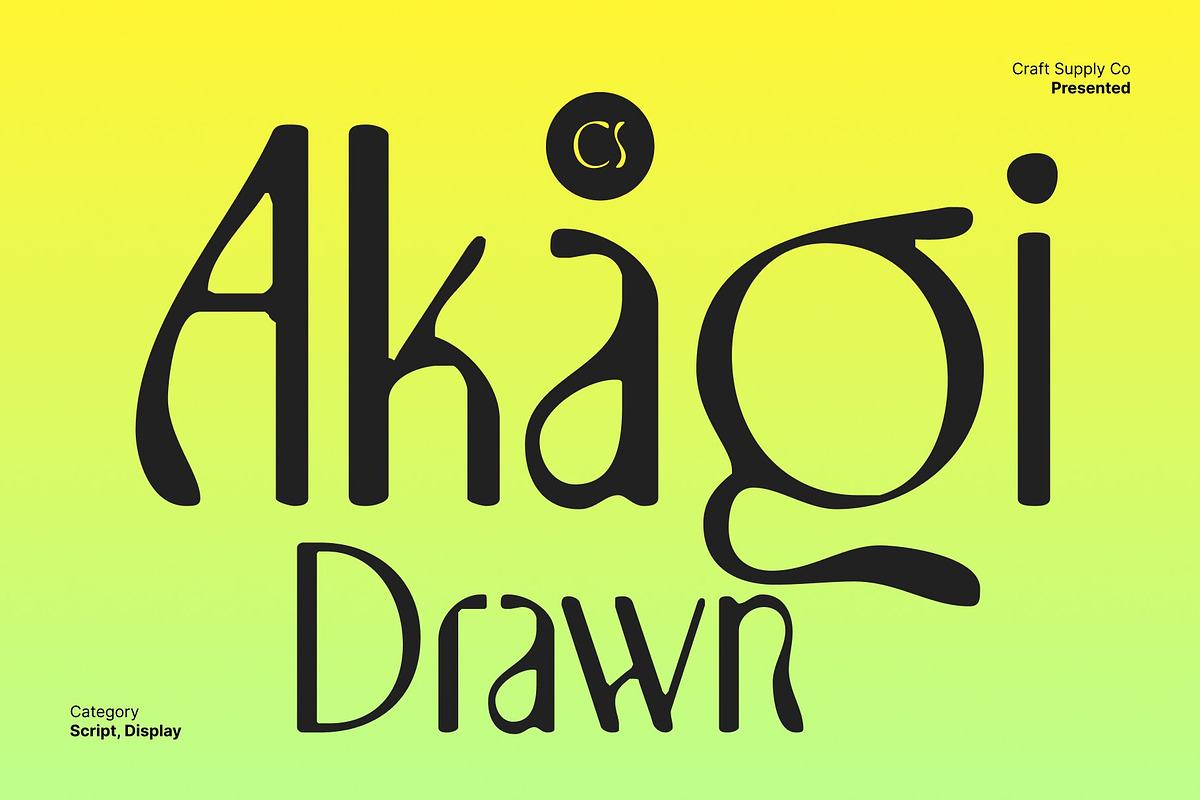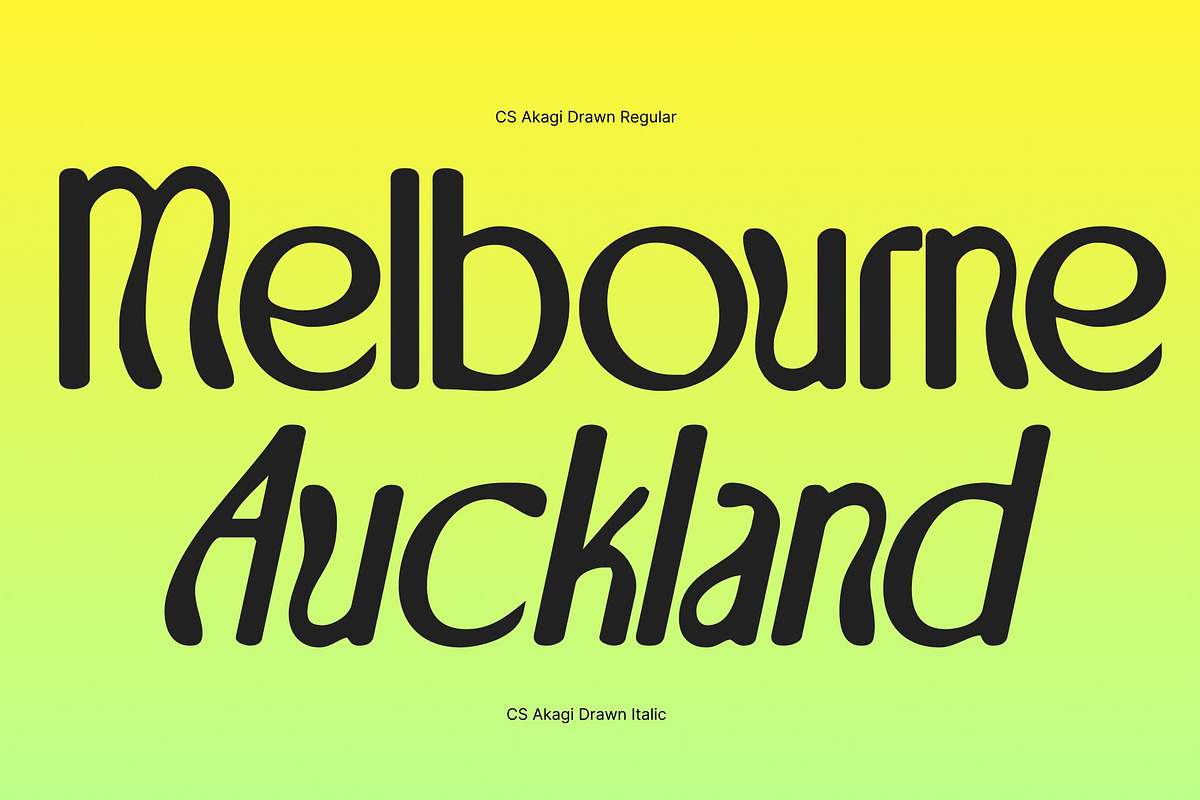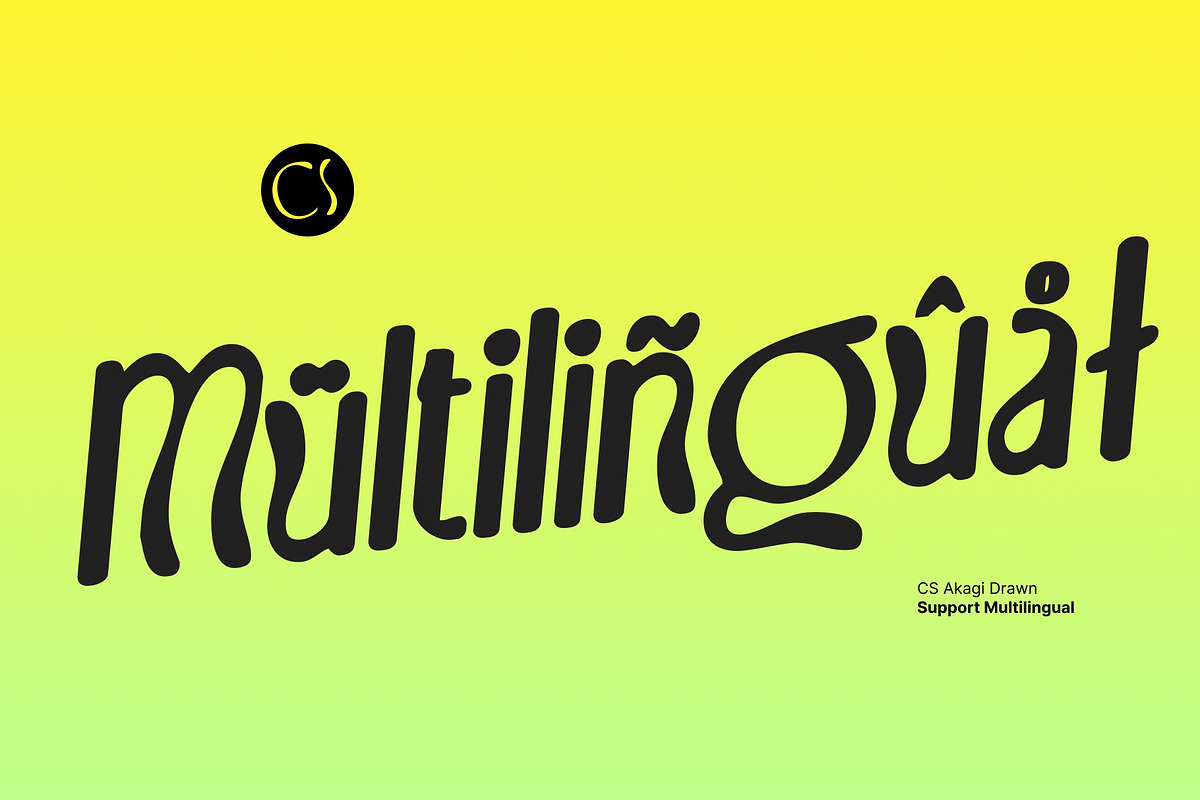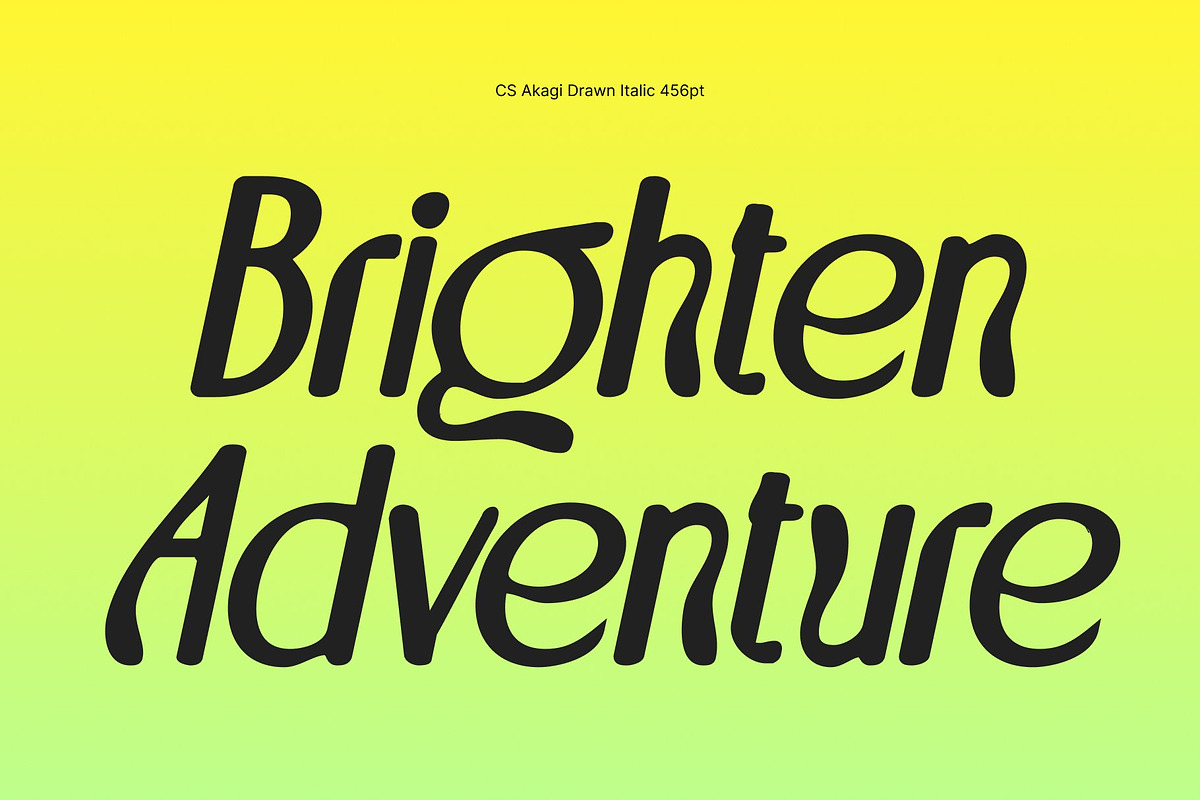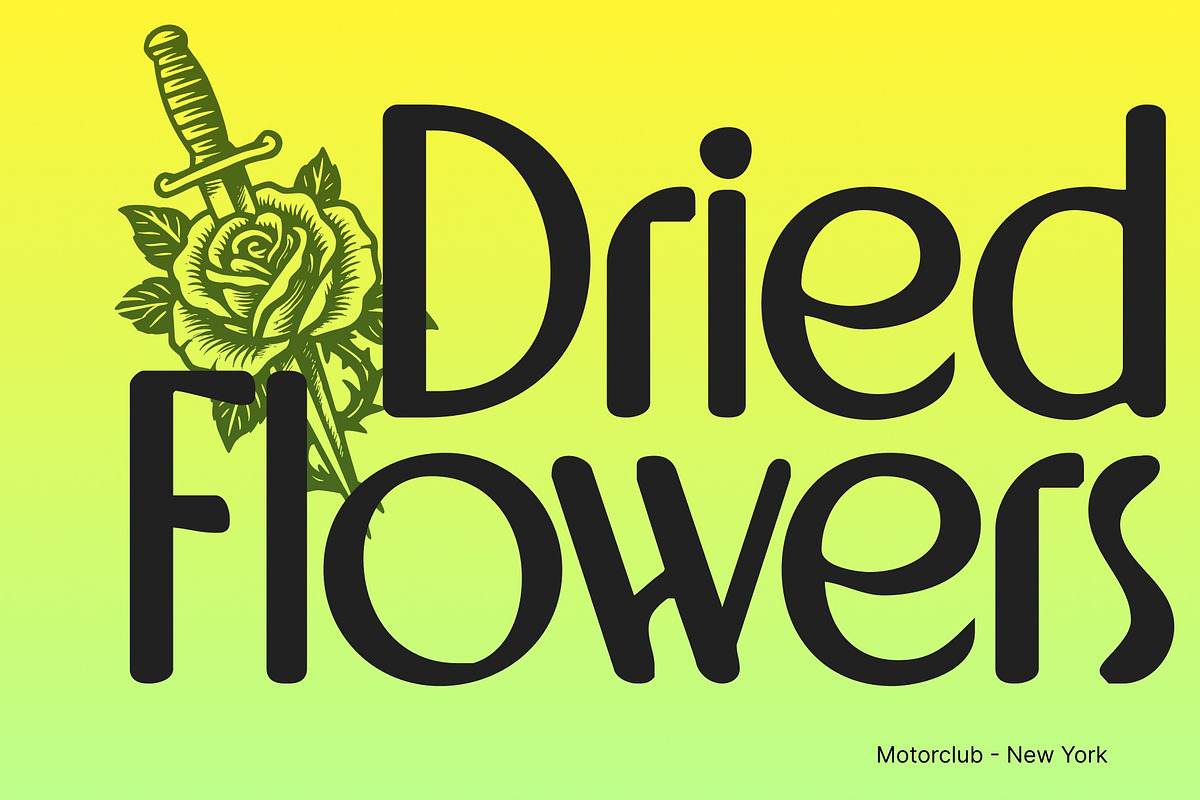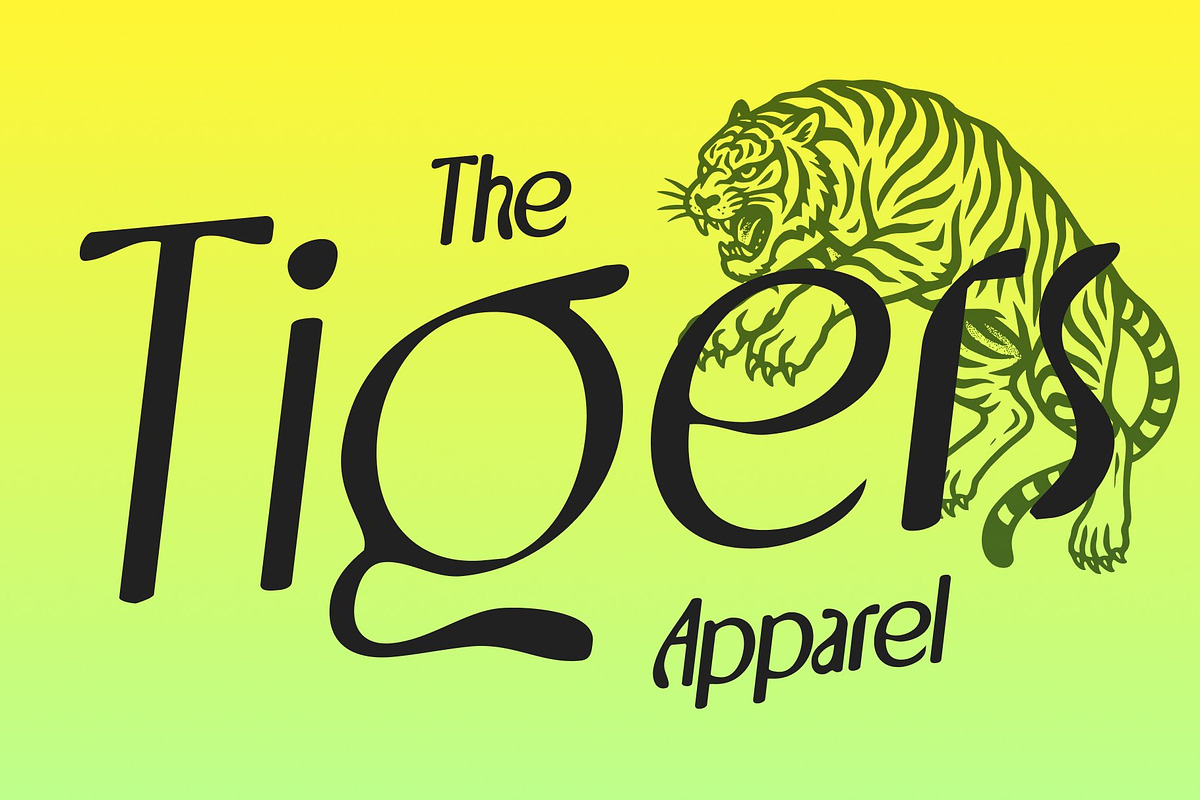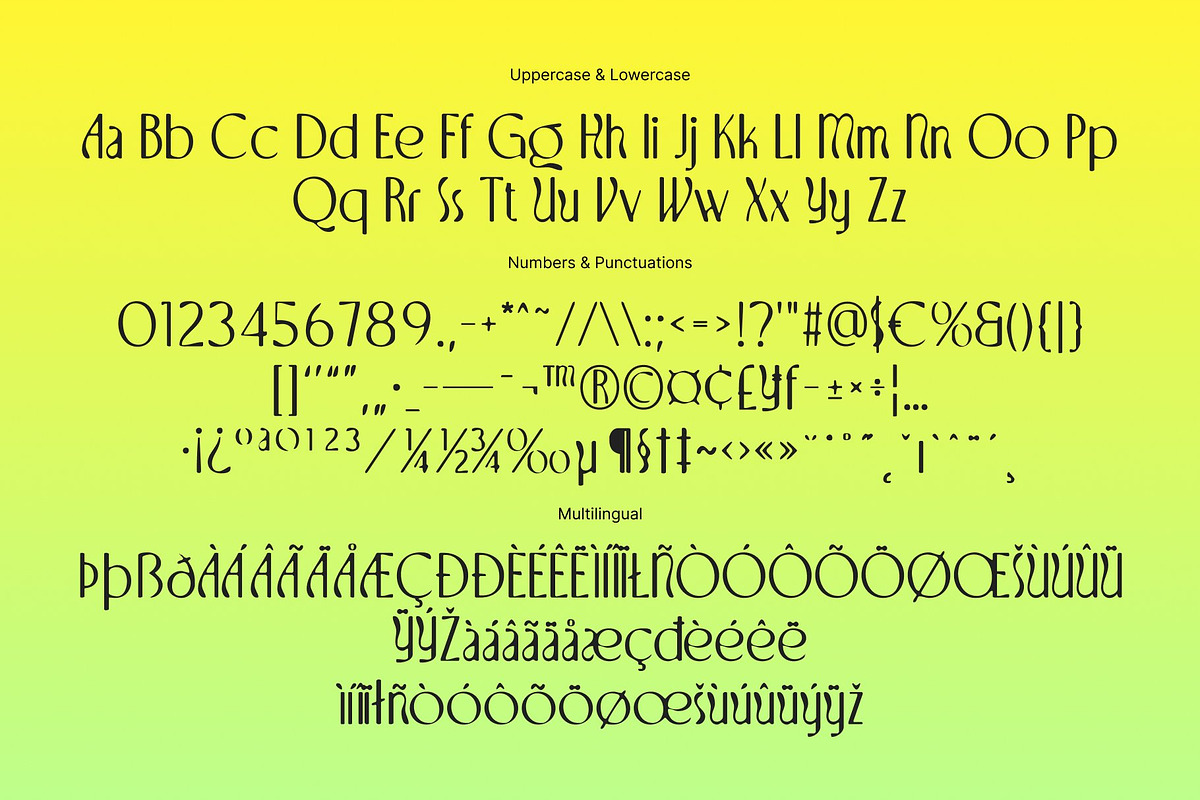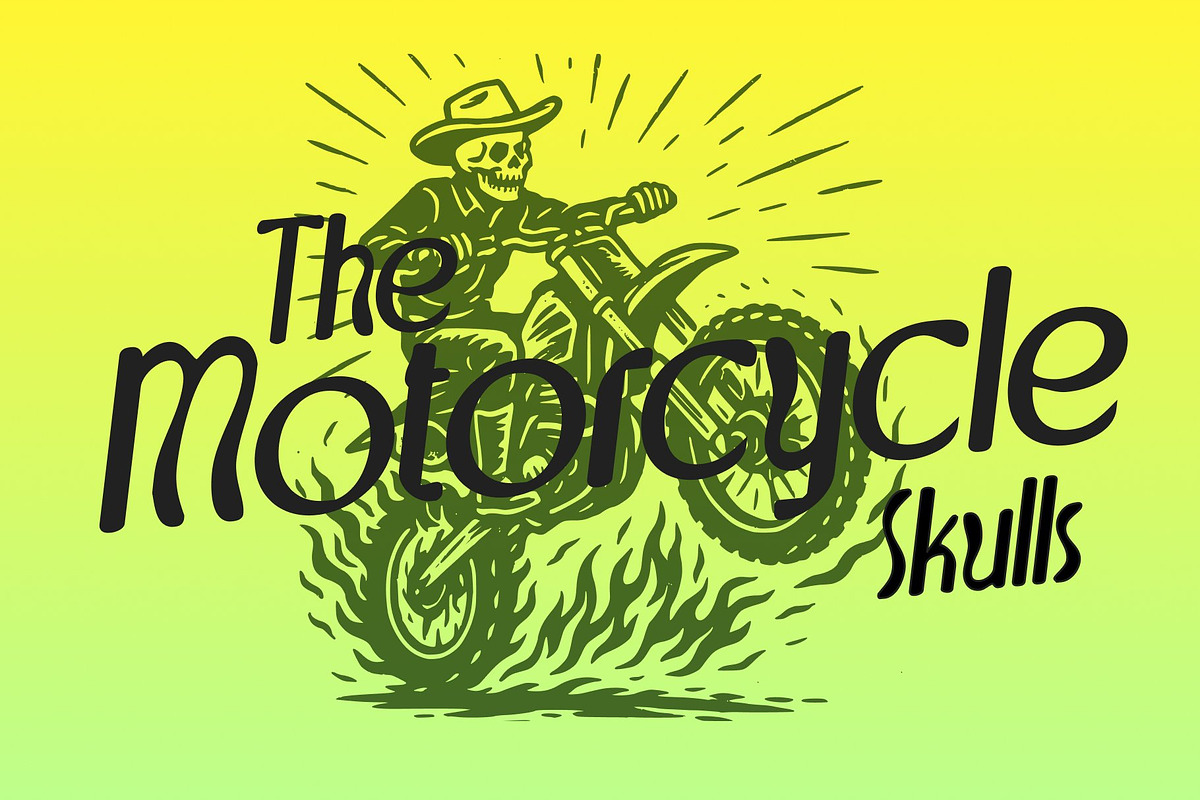
CS Akagi Drawn
CS Akagi Drawn – Modern Flow with Art Nouveau Charm
Artistic Sans Serif with Handcrafted Sophistication This is a refined sans serif font enhanced with a drawn effect, giving each letter a soft, artistic texture and unique character. Inspired by Art Nouveau curves, it blends graceful, flowing motion with modern geometric clarity, resulting in a typeface that feels contemporary.
Organic Curves with Expressive Personality The flowing letterforms feature subtle quirks and handcrafted touches, adding warmth and individuality without compromising readability. Each stroke carries a natural rhythm, creating a harmonious balance of softness and structure that makes the font memorable, stylish, and full of character.
Timeless Meets Modern Versatility By combining classic Art Nouveau inspiration with modern sans serif simplicity, this font adapts effortlessly to diverse design contexts. It works beautifully in both display and editorial applications, offering sophistication and a distinctive aesthetic that feels both timeless and fresh.
Perfect for Fashion, Branding, and Creative Projects This font shines in editorial layouts, playful packaging, fashion branding, and premium visual campaigns. Its soft, drawn lines and artistic elegance make it ideal for projects that require a refined, handcrafted touch while remaining modern, approachable, and visually captivating.